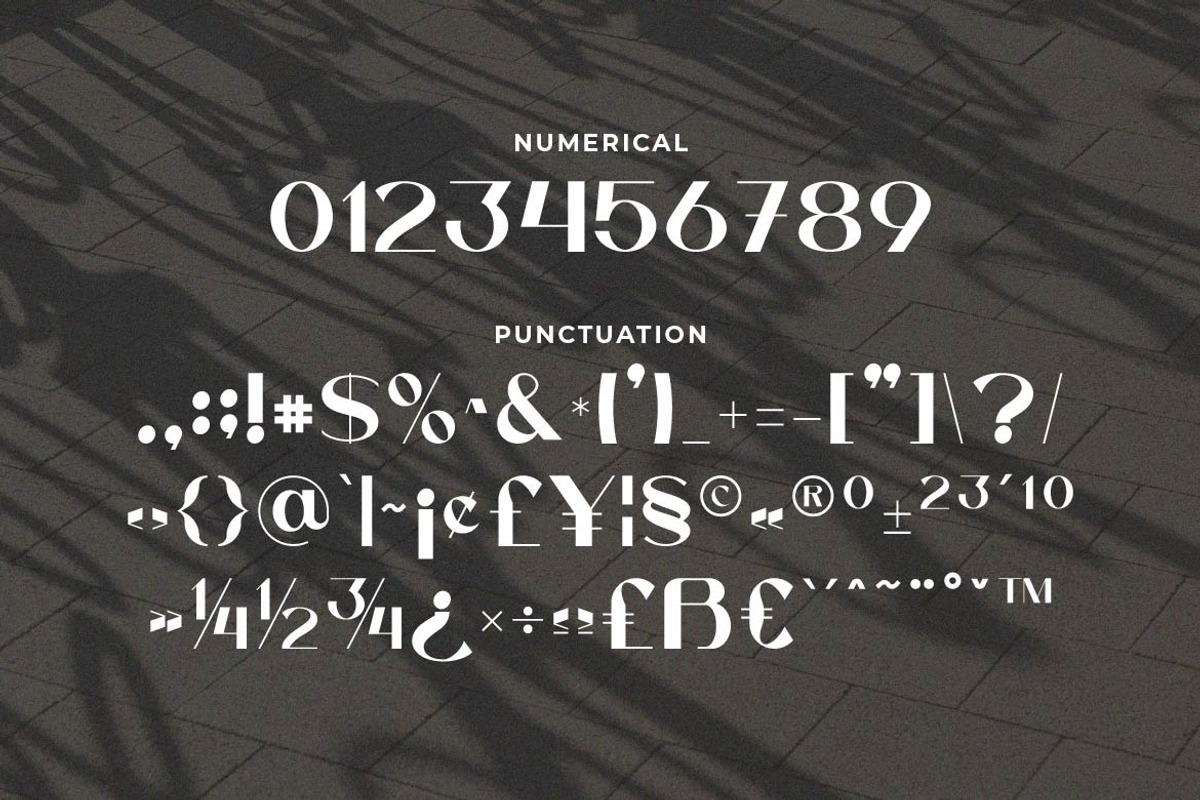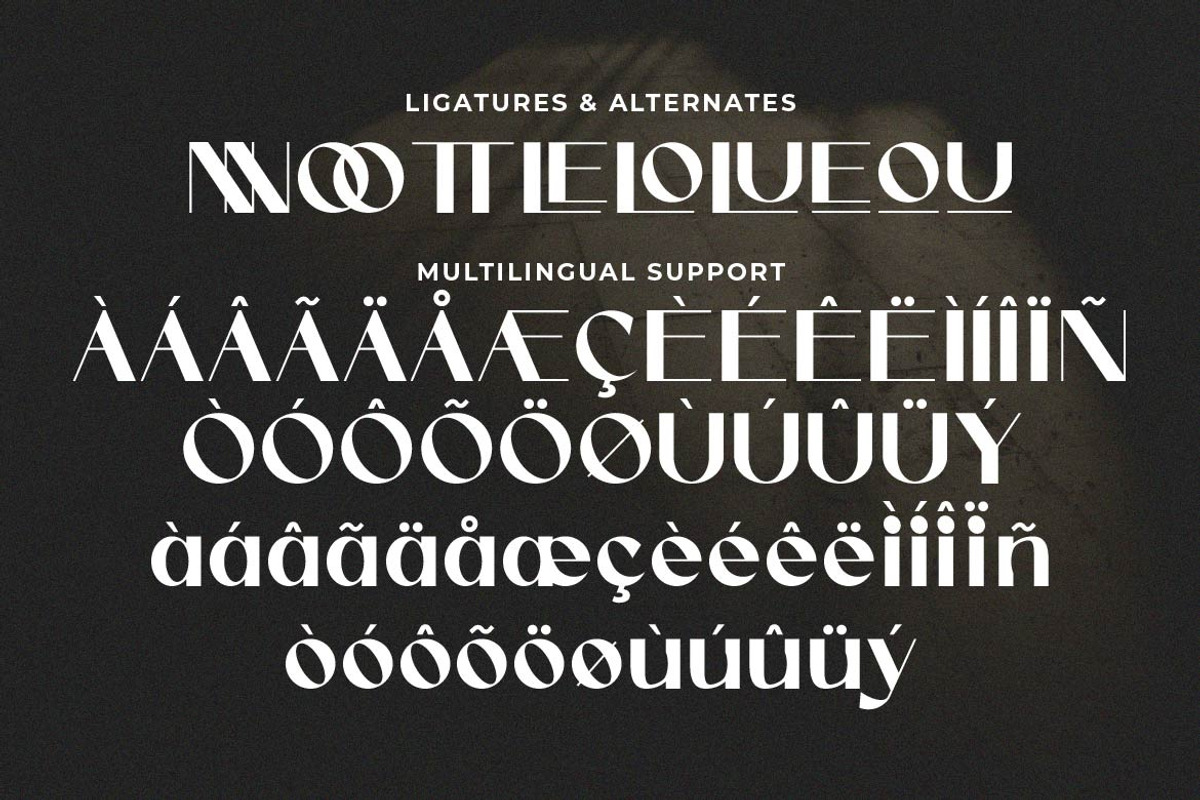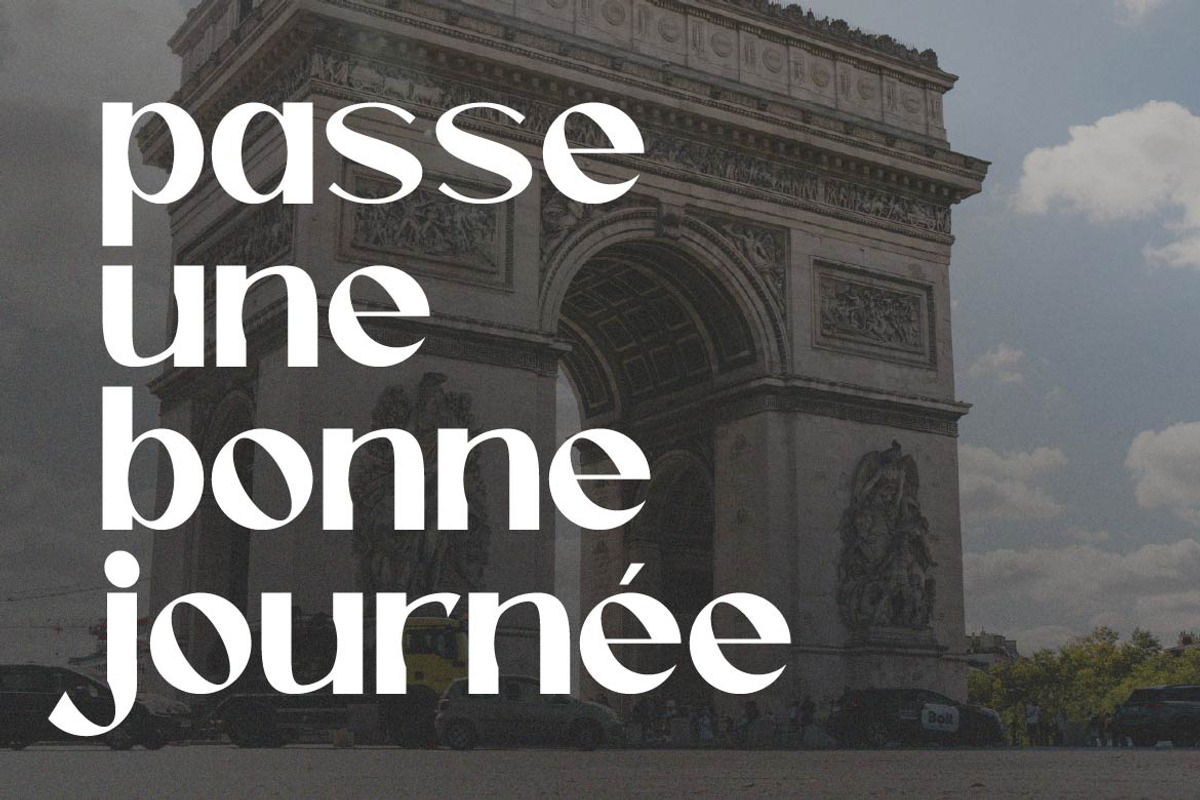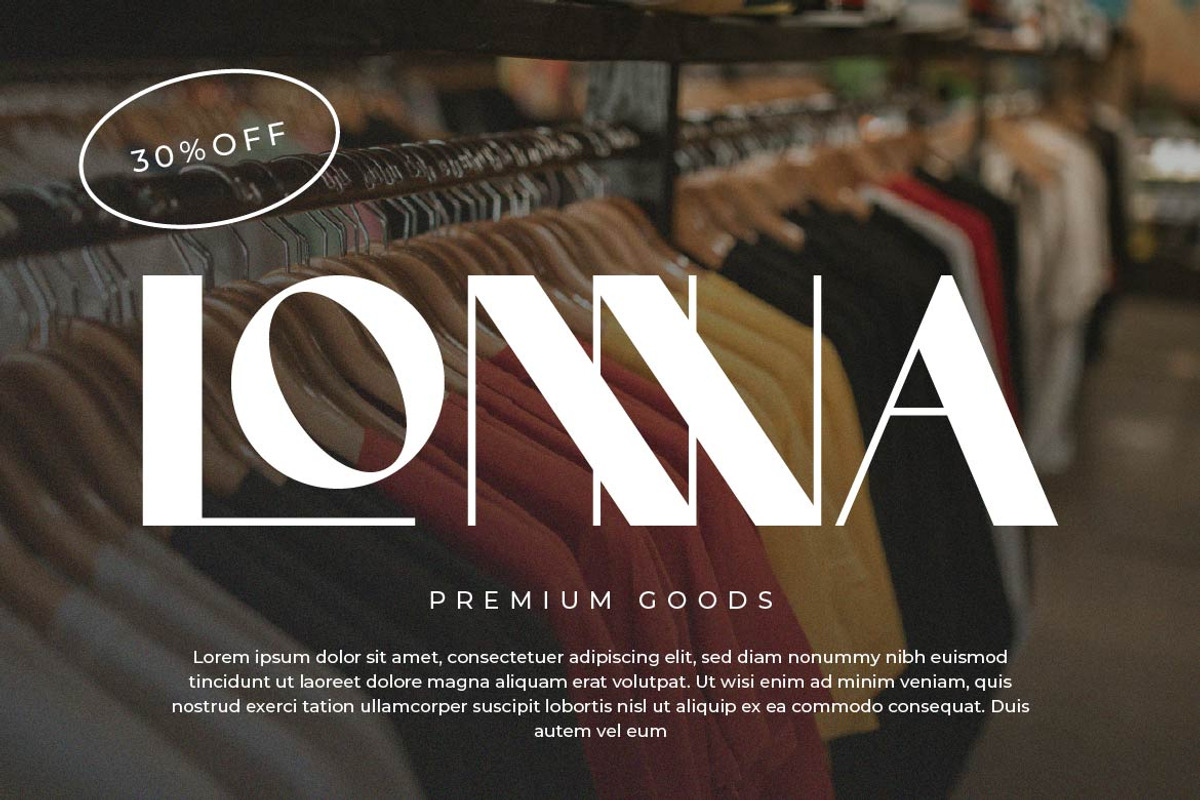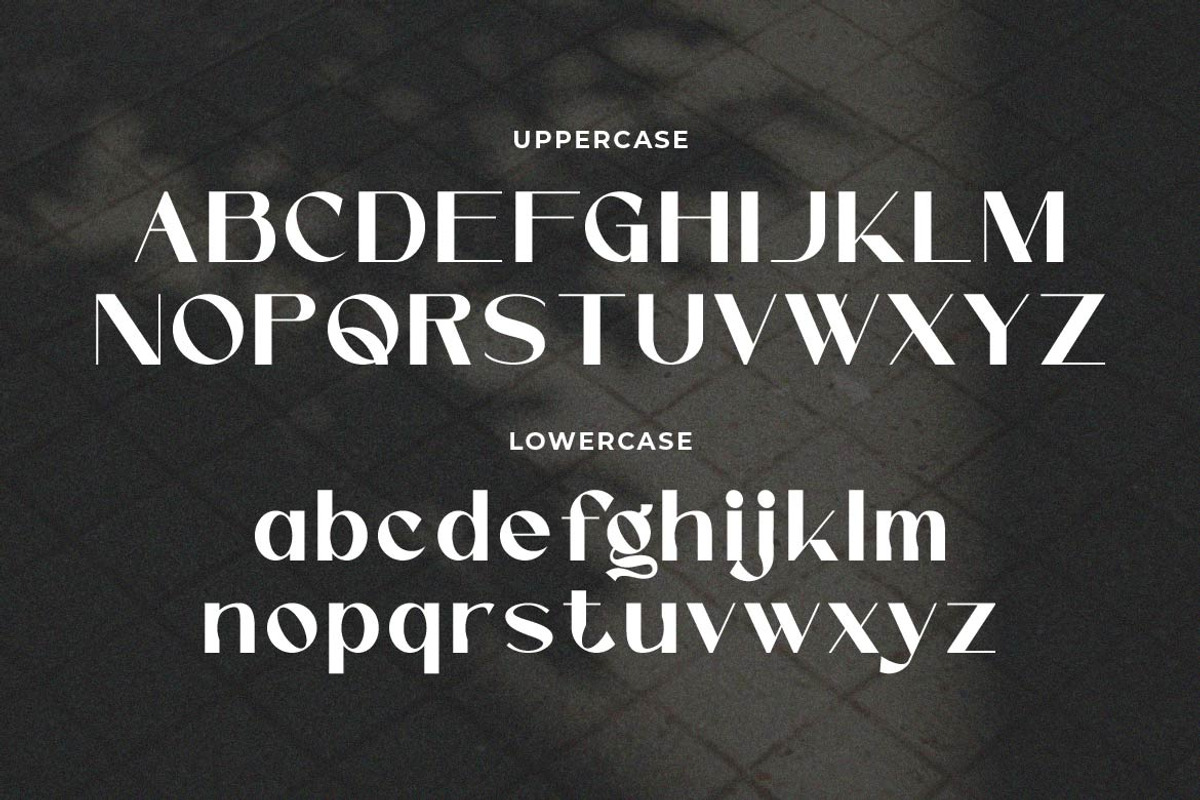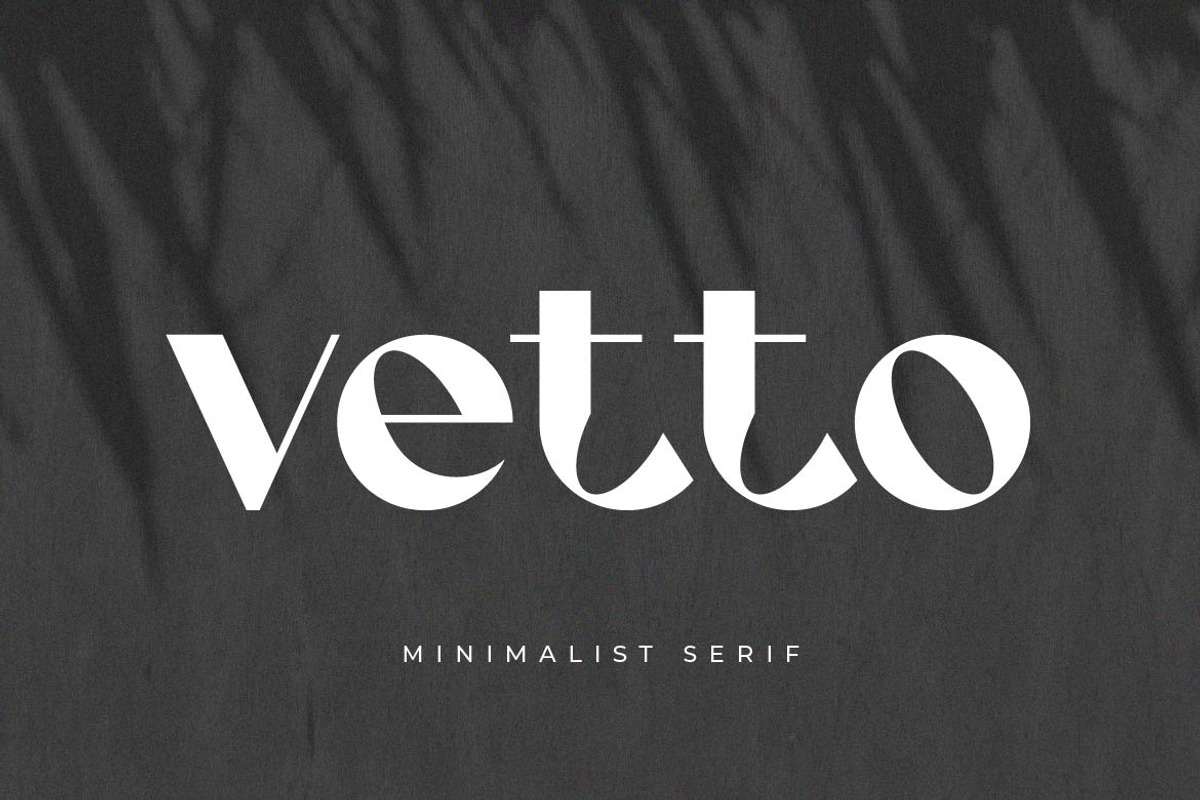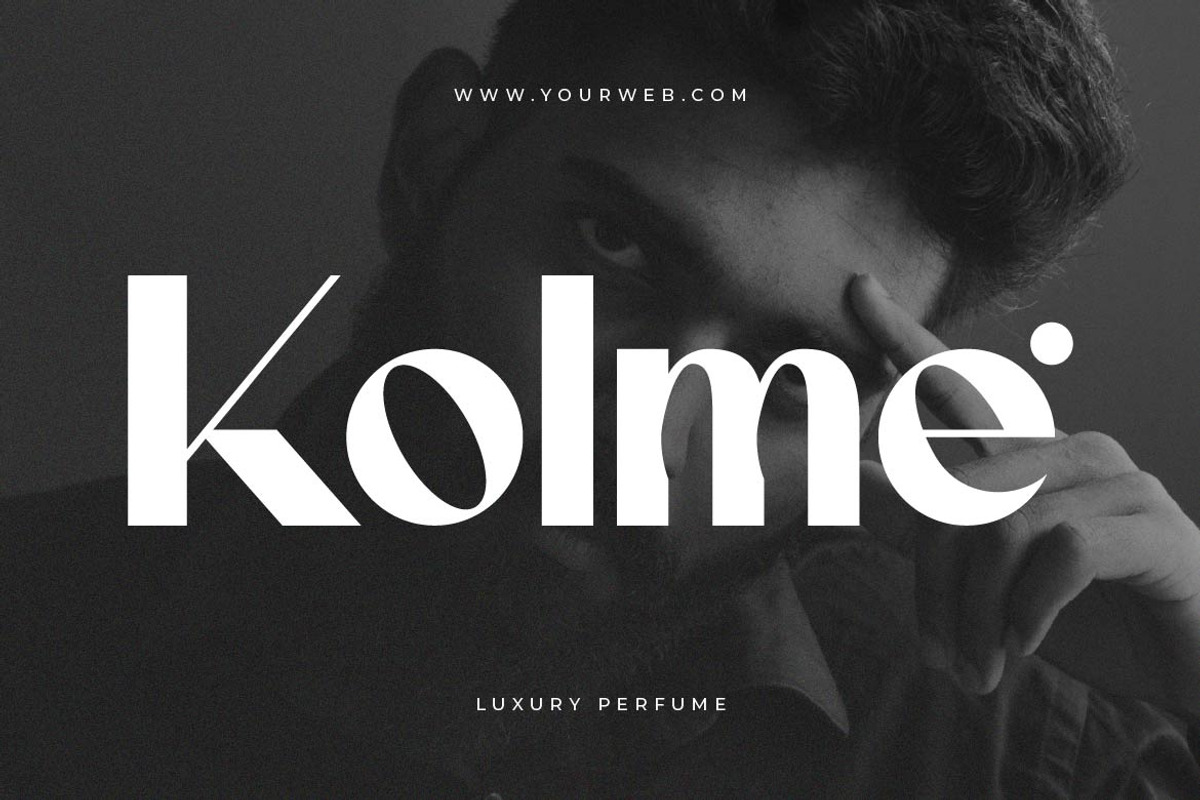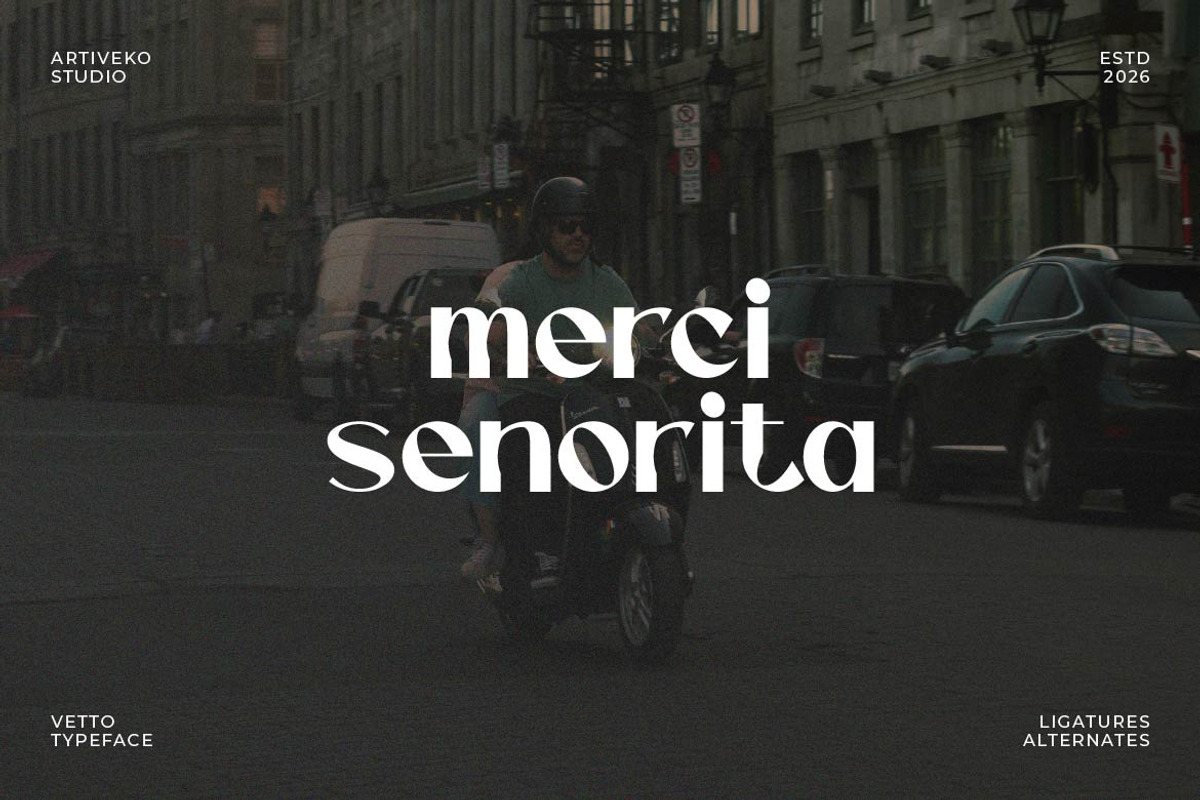
Vetto – Luxury Sans Serif Font
Vetto is a premium luxury sans serif typeface designed for elegant and feminine branding. With clean lines, refined proportions, and a modern aesthetic, Vetto delivers a sophisticated and high-end look that fits perfectly in boutique, fashion, beauty, and makeup industries.